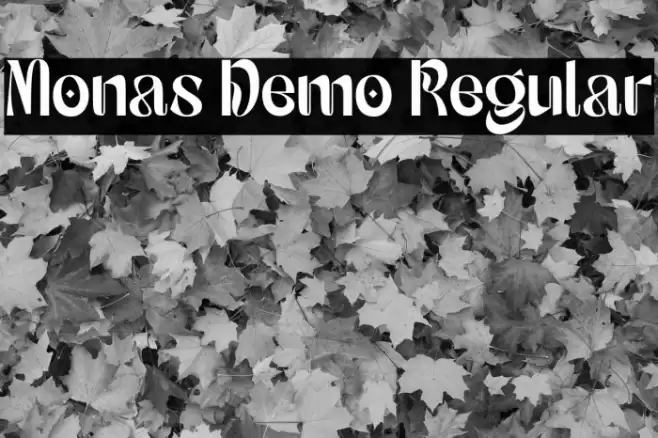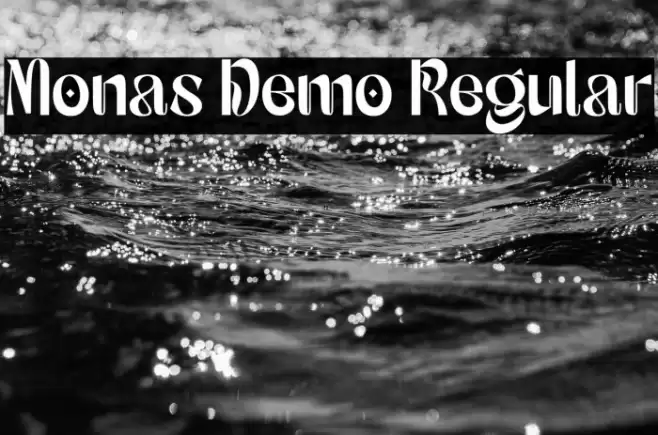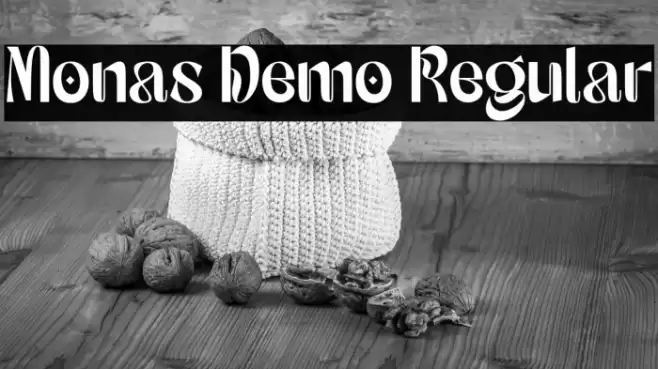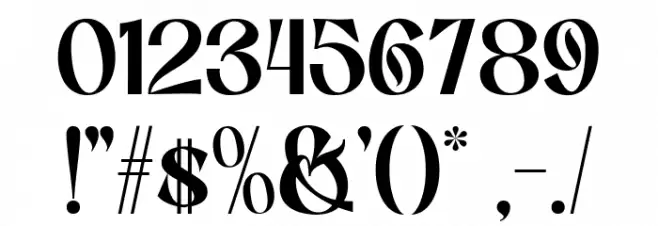
Monas Demo Regular Font
Monas Demo Regular Description
This font features a bold and artistic design with a unique blend of curves and sharp edges, creating a striking visual impact. The uppercase letters exhibit a strong presence with their thick strokes and intricate detailing, while the lowercase letters maintain a consistent style with slightly more fluidity. The numerals are bold and easily readable, complementing the overall design. Special characters are creatively styled, adding to the font's decorative appeal. This font's distinct style makes it suitable for eye-catching headlines and creative projects.
A bold, artistic font with striking curves and sharp edges, ideal for decorative use from Uncategorized fonts.
- Font: Monas Demo Regular
- Proposed Projects: Ideal for branding, posters, album covers, and any project requiring a bold, artistic touch.
- Contrast: High